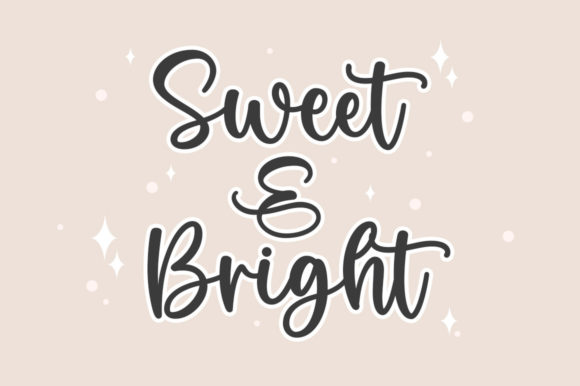
Prepare to fall head over heels for Sweet & Bright, a font so captivating it will make your designs sing. This enchanting script dances across the page with a grace that will leave you breathless. Its delicate curves and elegant flourishes exude a timeless charm that will elevate your projects to new heights.
Sweet & Bright is not just a font; it's an invitation to unleash your creativity. Its versatile nature allows it to seamlessly blend with a symphony of designs, from enchanting wedding invitations to heartwarming greeting cards. Imagine your words taking flight, adorned with the exquisite beauty of this font, creating a visual masterpiece that will leave a lasting impression.
With Sweet & Bright, your designs will blossom into a captivating display of elegance and sophistication. Its enchanting characters will captivate your audience, drawing them into a world of whimsy and delight. So, let your imagination soar, embrace the allure of Sweet & Bright, and witness the transformation of your creations into breathtaking works of art.
Created by the talented artisans at Graphix Line Studio, Sweet & Bright is a testament to the power of intricate craftsmanship. Its every curve and stroke has been meticulously designed to evoke a sense of wonder and timeless beauty. Whether you're a seasoned designer or simply seeking to add a touch of enchantment to your projects, Sweet & Bright will ignite your creativity and leave you yearning for more.